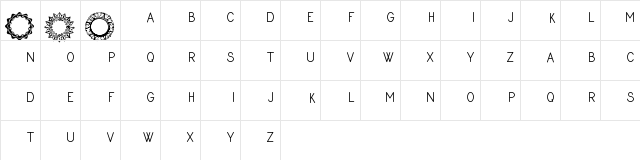
Monogram Framer Demo
Design Context for Monogram Framer Typeface
Monogram Framer uses fixed-width spacing throughout, giving it the structured, systematic character associated with coding environments and technical documentation.